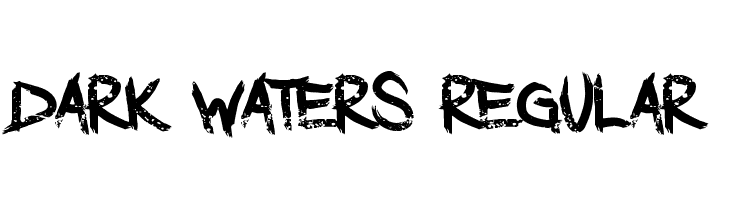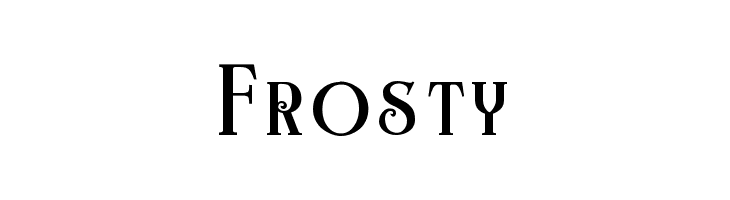
A bold, cursive script font with a handwritten signature style.
A modern vintage font with tall, narrow letterforms and moderate contrast.
A bold, playful font with superhero-themed embellishments on each letter.
A bold, shadowed, and slightly italicized font with a playful and dynamic style.
A bold, italicized font with angular, dynamic characters.
A bold, distressed font with a rough, textured appearance.
A bold, distressed font with a brush-like texture and aggressive style.
A bold, futuristic font with geometric shapes and a unique grid pattern.
A bold, natural handwritten font with expressive, fluid strokes.
A Gothic-style font with intricate, angular strokes and elaborate serifs.
A spooky, decorative font with elongated, twisted forms and gothic swirls.
A pictogram-based decorative font with tribal and prehistoric motifs.
A bold, elegant script font with fluid, connected characters and subtle flourishes.
A bold, italicized font with a modern, dynamic style.
A playful, hand-drawn font with bold, irregular strokes and a whimsical style.
A distressed, bold serif font with a rugged, eroded appearance.
A bold, italic serif font with dramatic serifs and a modern flair.
A clean, structured serif font with medium contrast and excellent readability.
A sleek, italicized, extra-condensed font with a modern and dynamic style.
Expressive handwritten script font.
A hand-drawn, vintage-style font with a playful and distressed appearance.
A flowing, cursive font with elegant loops and swashes.
A playful, bubbly font with bold, rounded characters.
A dynamic and flowing script font with elegant, cursive letterforms.
A bold, italic font with a modern, dynamic style and tight character spacing.
A bold, shadowed font with a modern and playful style.
A bold, 3D outlined font with a futuristic and digital aesthetic.
A modern, italicized font with a gradient effect created by horizontal lines.
A clean, minimalist font with thin, elongated characters and a modern aesthetic.
A collection of silhouette illustrations depicting dynamic scenes and characters.
A bold, hand-painted style font with textured, irregular characters.